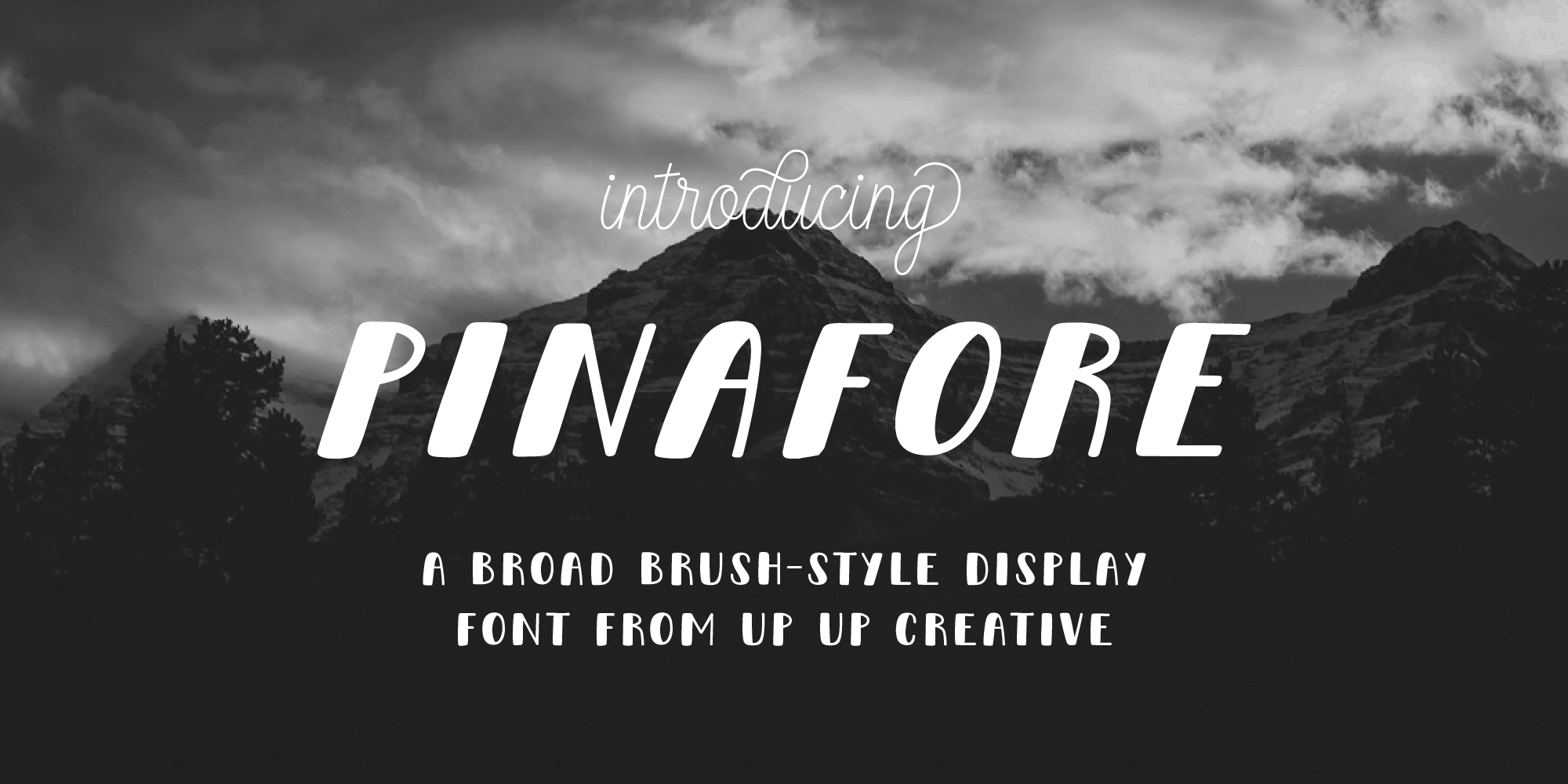
Pinafore Font is ideal for vintage children's clothing boutiques, traditional sewing pattern designs, nostalgic doll shop branding, heritage craft fair materials, old-fashioned bakery signage, and charming countryside event invitations.
Pinafore Font is exciting because it captures the innocent charm and wholesome simplicity of vintage childhood, delivering a sweetly nostalgic typeface that embodies traditional family values, handmade craftsmanship, and the timeless appeal of old-fashioned childhood memories.
The Pinafore Font family includes charming variations: Pinafore Light, Pinafore Regular, Pinafore Bold, vintage alternates, and decorative elements inspired by traditional children's clothing and countryside cottage aesthetics.
Embrace wholesome nostalgia with Pinafore Font Free Download, a charmingly crafted typeface that brings vintage childhood sweetness and traditional family values to your most heartwarming design projects. This nostalgic font excels in creating memorable branding for vintage toy stores, traditional craft workshops, heritage clothing boutiques, and family-oriented businesses that celebrate the simple pleasures and wholesome values of traditional childhood and rural living. The sweetly designed letterforms feature gentle curves and cottage-style proportions that communicate innocence, tradition, and family warmth while ensuring excellent readability across all vintage and family-focused applications. Perfect for children's heritage clothing catalogs, traditional craft fair promotions, countryside bed-and-breakfast materials, and old-fashioned family celebration invitations that need to evoke feelings of nostalgia and wholesome family tradition, this font connects with families who appreciate traditional values and simple pleasures. Each character radiates with innocent charm, making every nostalgic message feel like a treasured memory from simpler times when childhood was filled with handmade toys and homemade treats. Pinafore Font transforms contemporary communications into cherished keepsakes that celebrate traditional childhood while inspiring families to embrace the wholesome values and simple joys that create lasting happiness and meaningful family connections.